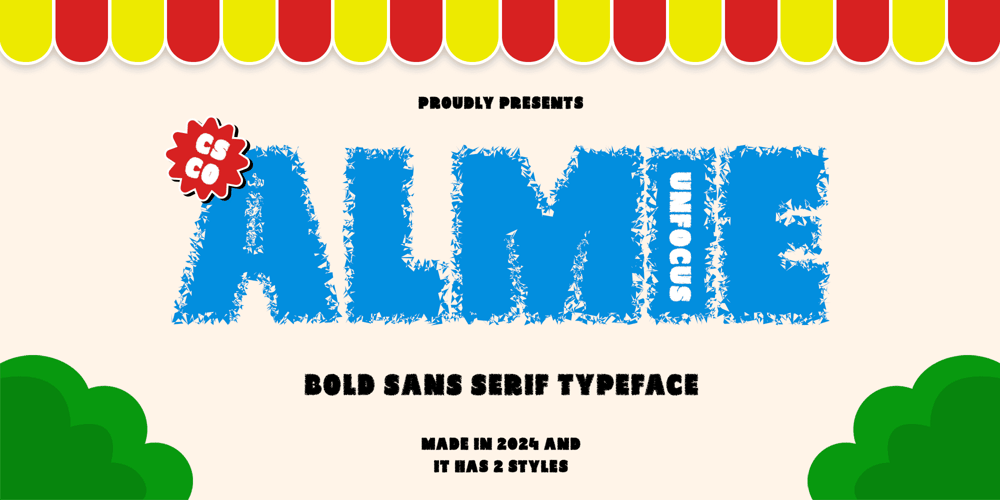
Almie Unfocus Font Family was designed by Trio Nazzar Saputra, Wahyu Hadi Yuana and published by Craft Supply Co. Almie Unfocus contains 2 styles and family package options. Almie Unfocus: Bold and Funky with Unfocused CharmPlayful and Striking DesignAlmie Unfocus is a bold sans serif font with a funky vibe and an unfocused effect. Perfect for creative projects, it adds a playful yet striking touch to posters, branding, and digital designs.Ideal for Creative ExpressionWith its unique unfocused effect and bold design, Almie Unfocus is ideal for creative expression. This font captures attention and brings a fun, dynamic element to your visual projects, making it stand out in any medium.Perfect for Posters and BrandingAlmie Unfocus enhances posters and branding materials with its playful and striking appearance. Its bold, unfocused characters ensure your message is conveyed with creativity and impact, making it perfect for promotional campaigns and brand identities.Versatile for Digital DesignsVersatile and distinctive, Almie Unfocus adapts seamlessly to digital designs. Whether used in web design, social media graphics, or digital art, this font adds a funky and memorable touch that resonates with modern audiences.